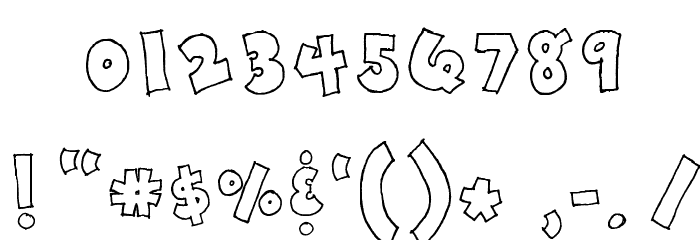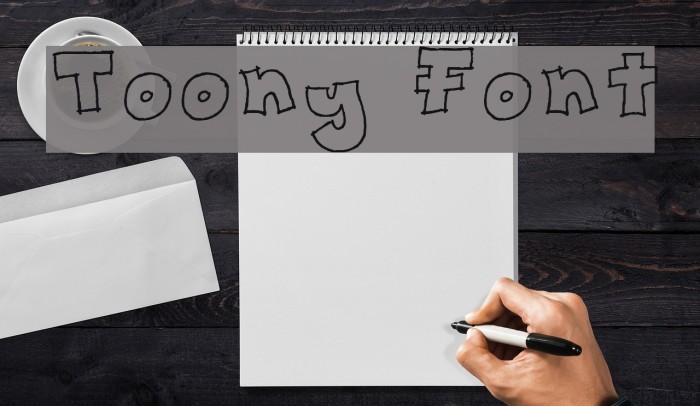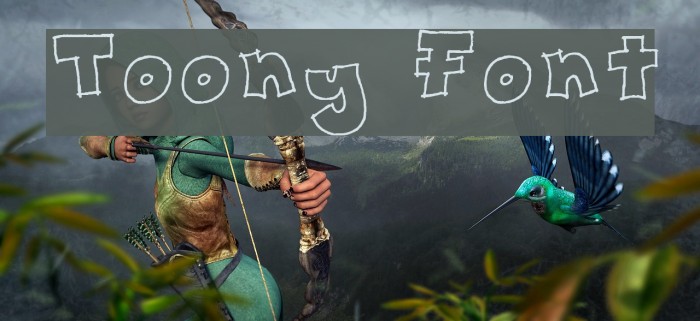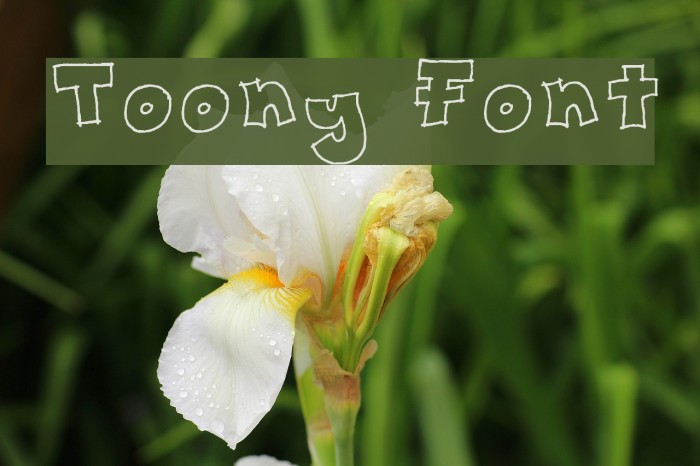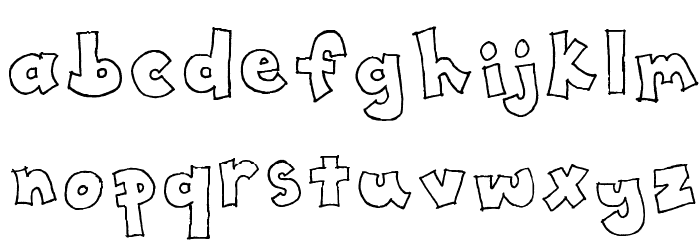
Toony Font
Toony Description
This playful and whimsical font features bold, cartoon-like characters with a hand-drawn appearance. The letters are slightly irregular, giving them a lively and dynamic feel. Each character is outlined, adding to the playful aesthetic. The font includes both uppercase and lowercase letters, numbers, and a variety of special characters. Its informal style makes it perfect for projects that require a fun and engaging look.
A playful, hand-drawn font with bold, cartoon-like characters from Cartoon fonts.
- Proposed Projects: Ideal for children's books, comic strips, playful branding, and party invitations.
- Overall Style: Playful, Whimsical